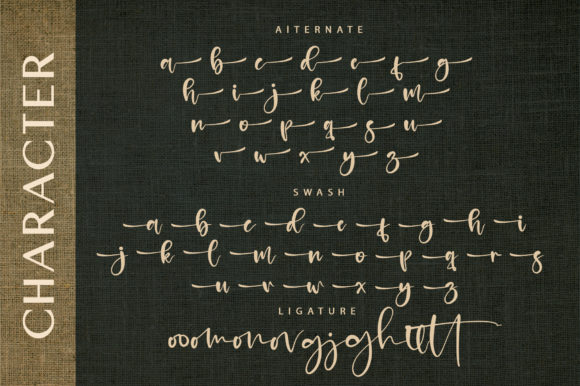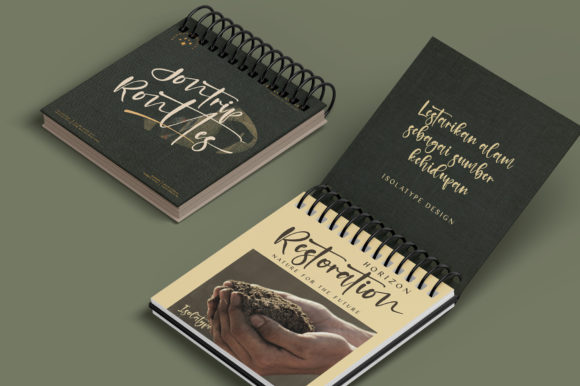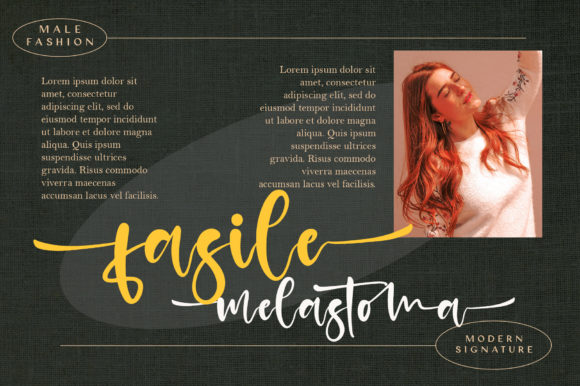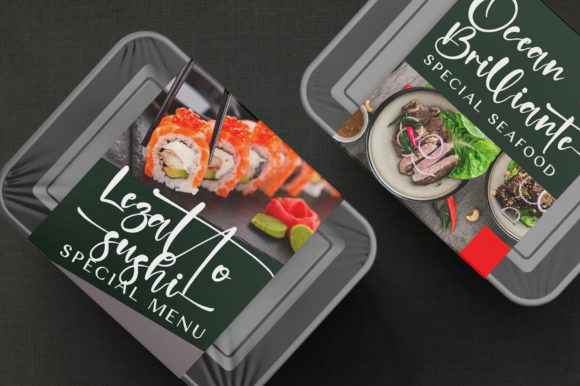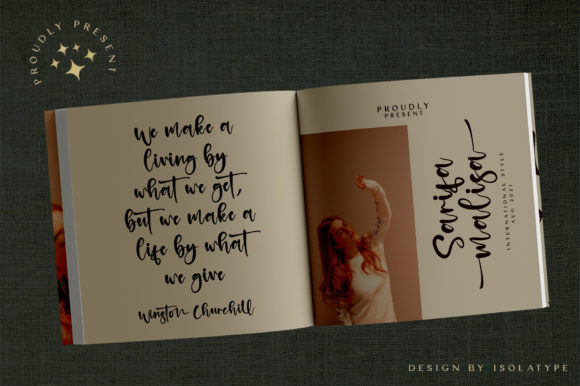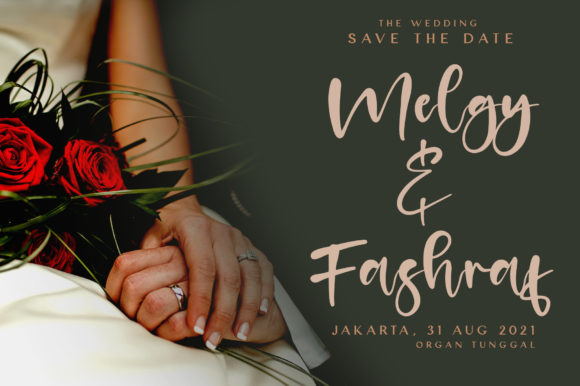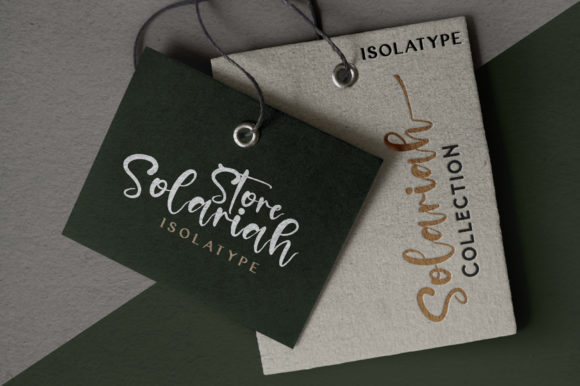
Jontrip Ronttes Font
Jontrip Ronttes is a lovely and delicate script font that exudes elegance and class. This font was particularly crafted for those who need a beautiful and refreshing look to their designs.